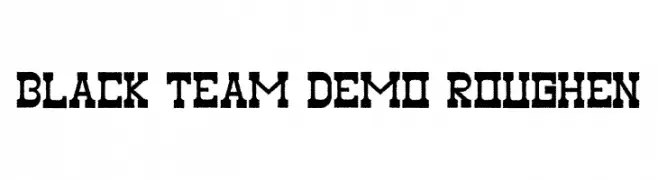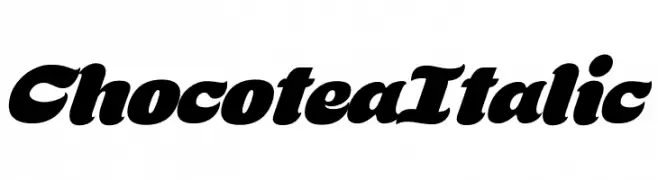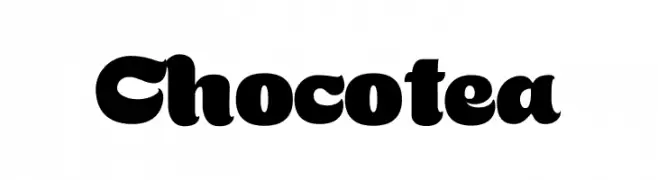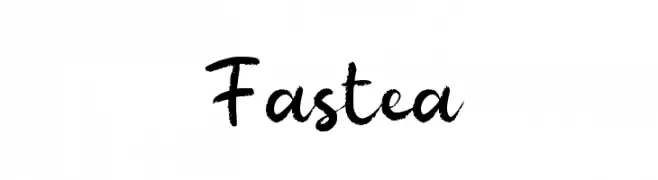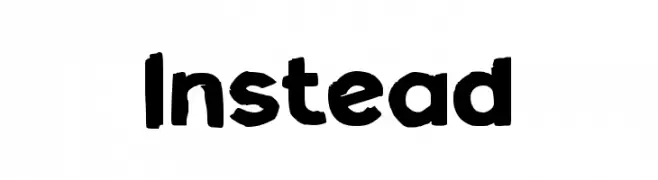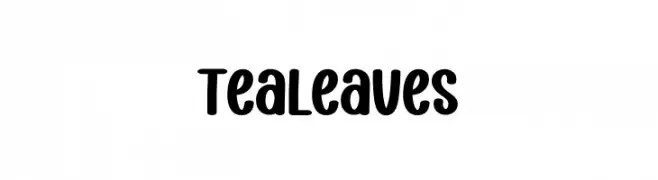
A bold and dynamic font with thick strokes and slightly condensed letterforms.
A dynamic handwritten font with fluid strokes and artistic flair.
A bold, textured font with a rugged, vintage look.
A bold, geometric slab serif font with strong, uniform characters.
A playful, bold font with rounded edges and a friendly, approachable style.
A bold, hand-painted style font with dynamic, brush-like strokes.
A bold, rugged font with a handcrafted, distressed style.
A bold, flame-themed font with thick strokes and dynamic energy.
A bold, dynamic script font with a strong italic slant and smooth curves.
A bold, playful font with thick, rounded strokes and a whimsical flair.